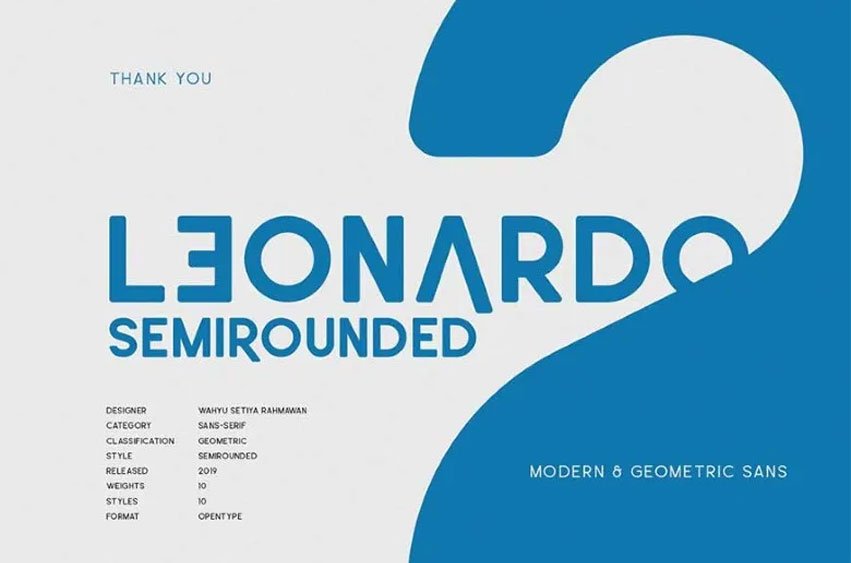
Leonardo Font Semi Rounded is the second version of the Leonardo family, a modern sans with a geometric touch and semi-rounded corners.
It comes in clean caps, 10 weights modern caps, thus creating more variables.